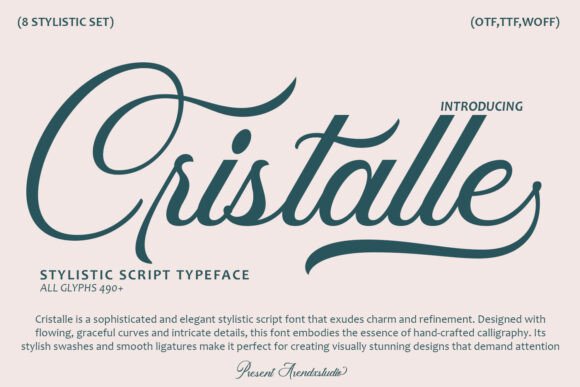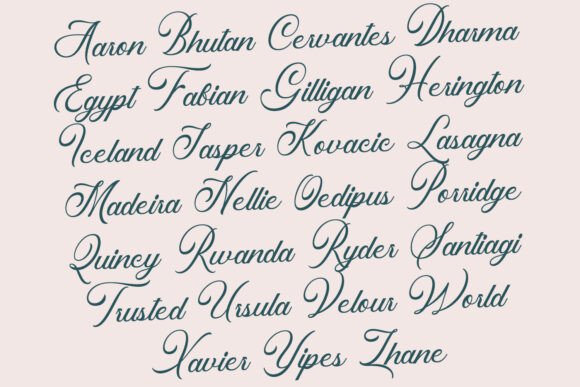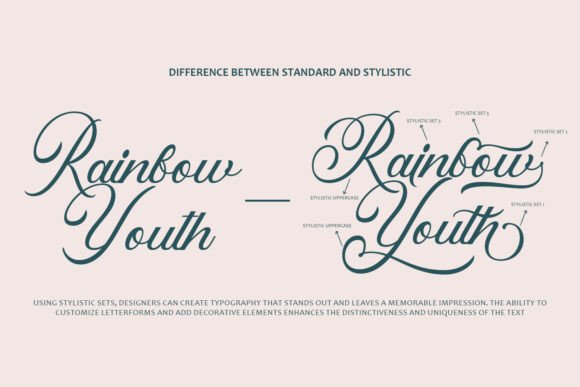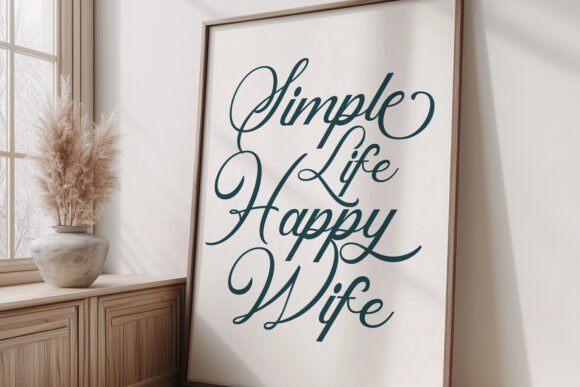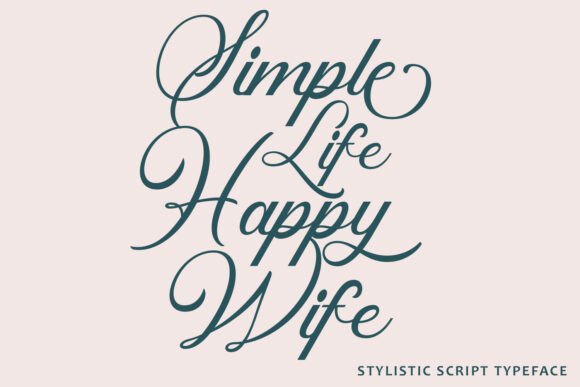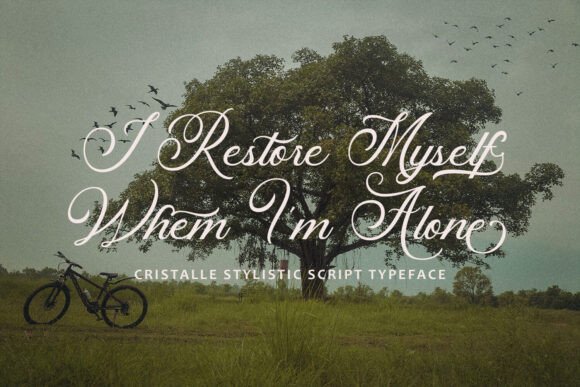
Cristalle Font: Elevate Your Designs with Elegance and Sophistication
In the world of typography, few fonts capture the essence of luxury and refinement as effortlessly as Cristalle. This stunning stylistic script font is a masterpiece of modern calligraphy, boasting flowing curves, intricate details, and a sophisticated charm that instantly elevates any design. Whether you’re a seasoned designer or a crafty DIY enthusiast, Cristalle is an exceptional choice for creating visually stunning projects that demand attention.
The Essence of Cristalle: A Perfect Blend of Style and Elegance
Cristalle is more than just a font – it’s an experience. Its elegant swashes and smooth ligatures dance across the page, evoking the feeling of hand-crafted calligraphy. The font’s refined aesthetic is perfect for designs that require a touch of sophistication, making it an excellent choice for wedding invitations, luxury branding, fashion labels, and high-end packaging.
Endless Customization Options
One of the standout features of Cristalle is its versatility. The font comes with an array of alternate characters and stylistic sets, allowing you to customize your design to perfection. With Cristalle, you can effortlessly create unique and eye-catching designs that reflect your personal style or brand identity. Whether you’re looking for a classic and traditional look or something more modern and bold, Cristalle has got you covered.
Timeless Appeal and Refined Aesthetic
Cristalle’s timeless appeal lies in its ability to seamlessly blend traditional elegance with modern flair. Its refined aesthetic makes it perfect for designs that require a touch of sophistication, while its versatility ensures that it can be used in a wide range of applications. From wedding invitations and luxury branding to fashion labels and high-end packaging, Cristalle brings a level of elegance and refinement that’s hard to match.
Cristalle is a font that’s designed to inspire creativity and elevate your designs. Whether you’re a professional designer or a crafty DIY enthusiast, Cristalle is an exceptional choice for anyone looking to add a touch of sophistication to their work. With its ease of use and versatility, Cristalle is perfect for a wide range of projects, from digital designs to print materials.
Key Features of Cristalle Font
- Sophisticated and elegant stylistic script font: Cristalle exudes charm and refinement, making it perfect for designs that require a touch of luxury.
- Flowing, graceful curves and intricate details: The font’s elegant swashes and smooth ligatures make it perfect for creating visually stunning designs.
- Versatile and well-suited for a variety of applications: Cristalle is perfect for wedding invitations, luxury branding, fashion labels, and high-end packaging.
- Array of alternate characters and stylistic sets: The font’s customization options allow for endless creativity and flexibility.
Tips for Using Cristalle Font
To get the most out of Cristalle, here are a few tips to keep in mind:
- Experiment with different swashes and ligatures: Cristalle’s elegant swashes and smooth ligatures can add a touch of sophistication to any design.
- Mix and match alternate characters: The font’s array of alternate characters allows for endless customization and creativity.
- Use Cristalle for headlines and titles: The font’s bold and elegant aesthetic makes it perfect for headlines and titles.
In conclusion, Cristalle is a stunning stylistic script font that’s perfect for designers and crafters looking to add a touch of elegance and sophistication to their work. With its flowing curves, intricate details, and versatile design, Cristalle is an exceptional choice for a wide range of applications. Whether you’re looking to create wedding invitations, luxury branding, fashion labels, or high-end packaging, Cristalle is the perfect font for you.